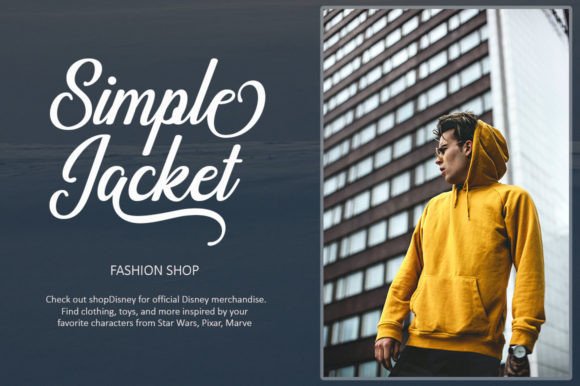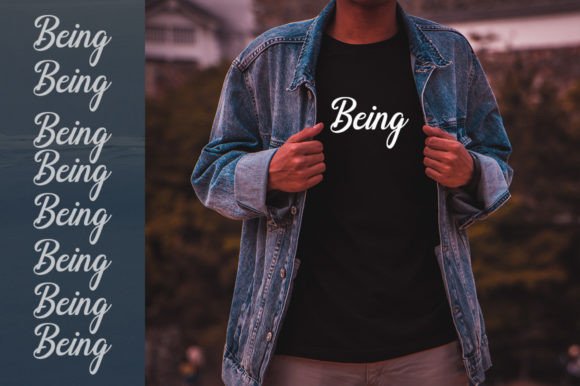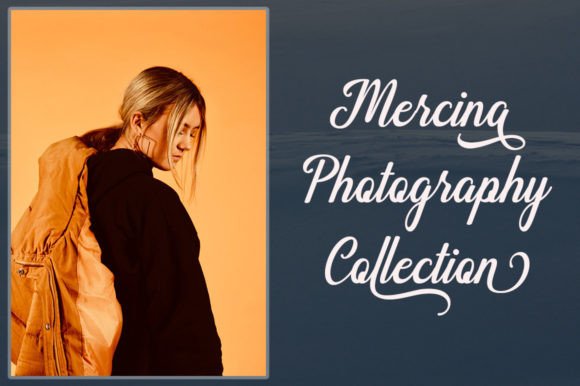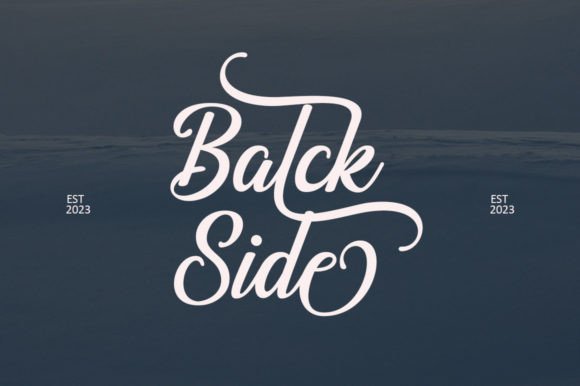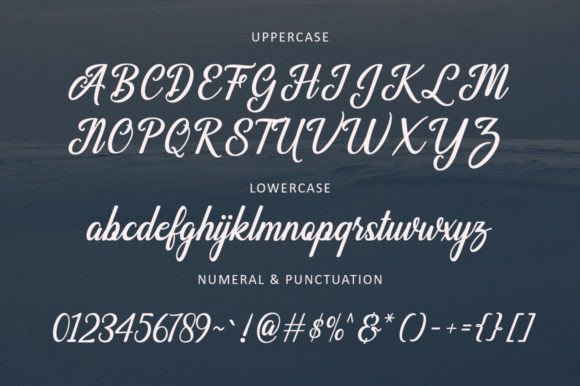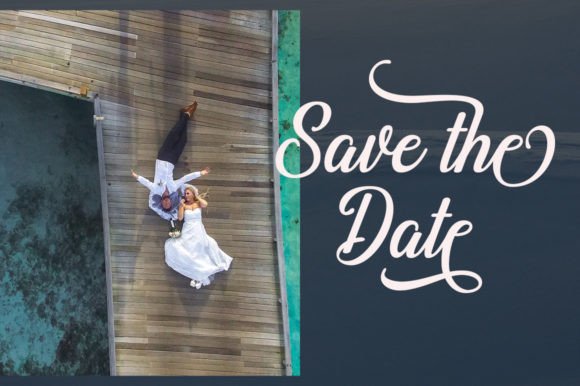
Introduction to Seutrom Font
Have you ever found yourself stuck in front of your computer, trying to convey the perfect message in your creative project, but struggling to find the right font to match your vision? I know I have. That’s why I’m excited to introduce you to the Seutrom Font, a beautiful script font that’s about to become your new go-to design resource.
With its charming and playful characters that seem to dance along a baseline, the Seutrom Font is the perfect choice for any creative project that needs a touch of whimsy and personality. Whether you’re working on a design project, creating a social media graphic, or even just writing a blog post, this high-quality font is sure to elevate your message and make it stand out.
Key Features of Seutrom Font
- Unique, hand-drawn design style, ideal for creative projects that require a personal touch.
Honest Review: Seutrom Font
I recently came across the Seutrom Font and was excited to give it a try. As a designer, I’m always on the lookout for high-quality fonts that can elevate my creative projects. The Seutrom Font does not disappoint.
- ✨ The font has a unique and modern design that’s perfect for creating a sleek, minimalist aesthetic in my designs.
While the Seutrom Font is a great addition to my design library, I do have a few limitations to note:
- ⚠️ The font may not be suitable for projects that require a more traditional or serif font style.
- ⚠️ Some users may find the font’s modern design to be too bold or overpowering.
Overall, I’m impressed with the Seutrom Font and would highly recommend it to designers who are looking for a high-quality, modern font to enhance their creative projects.
Tips for Getting the Most Out of Seutrom Font
For the best results, use the Seutrom Font in combination with other design elements, such as images or graphics. Experiment with different font sizes and styles to create a unique look. You can also use the font in conjunction with a transparent background to create a modern and sleek design.
The Seutrom Font is a great resource for a variety of creative projects, including: